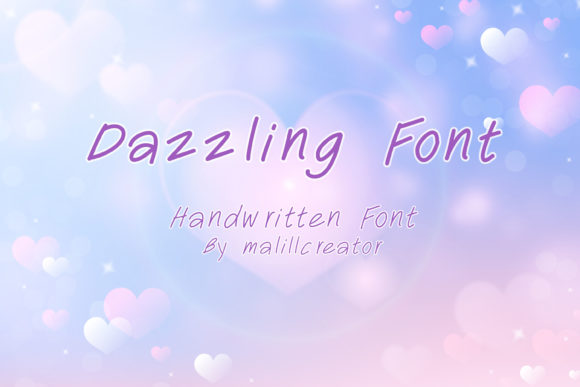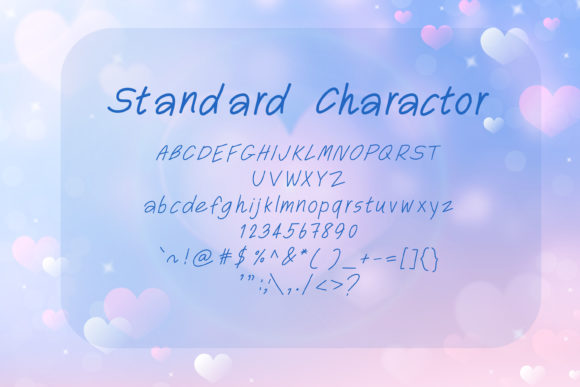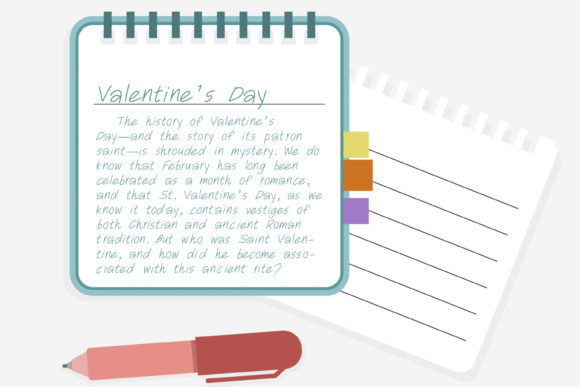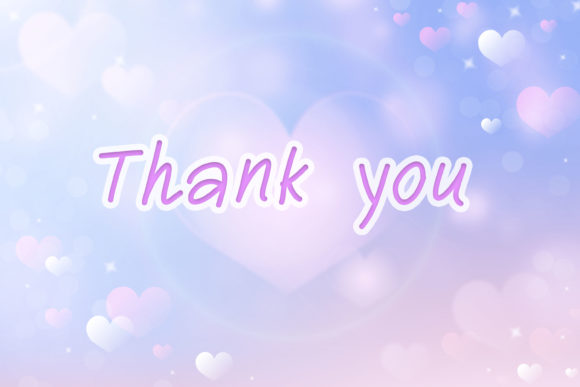
About Dazzling Font
Dazzling is a simple, cute and friendly handwritten font. Its distinct and well balanced letters make this font a masterpiece. Fall in love with its incredibly versatile style and use it to create spectacular designs!